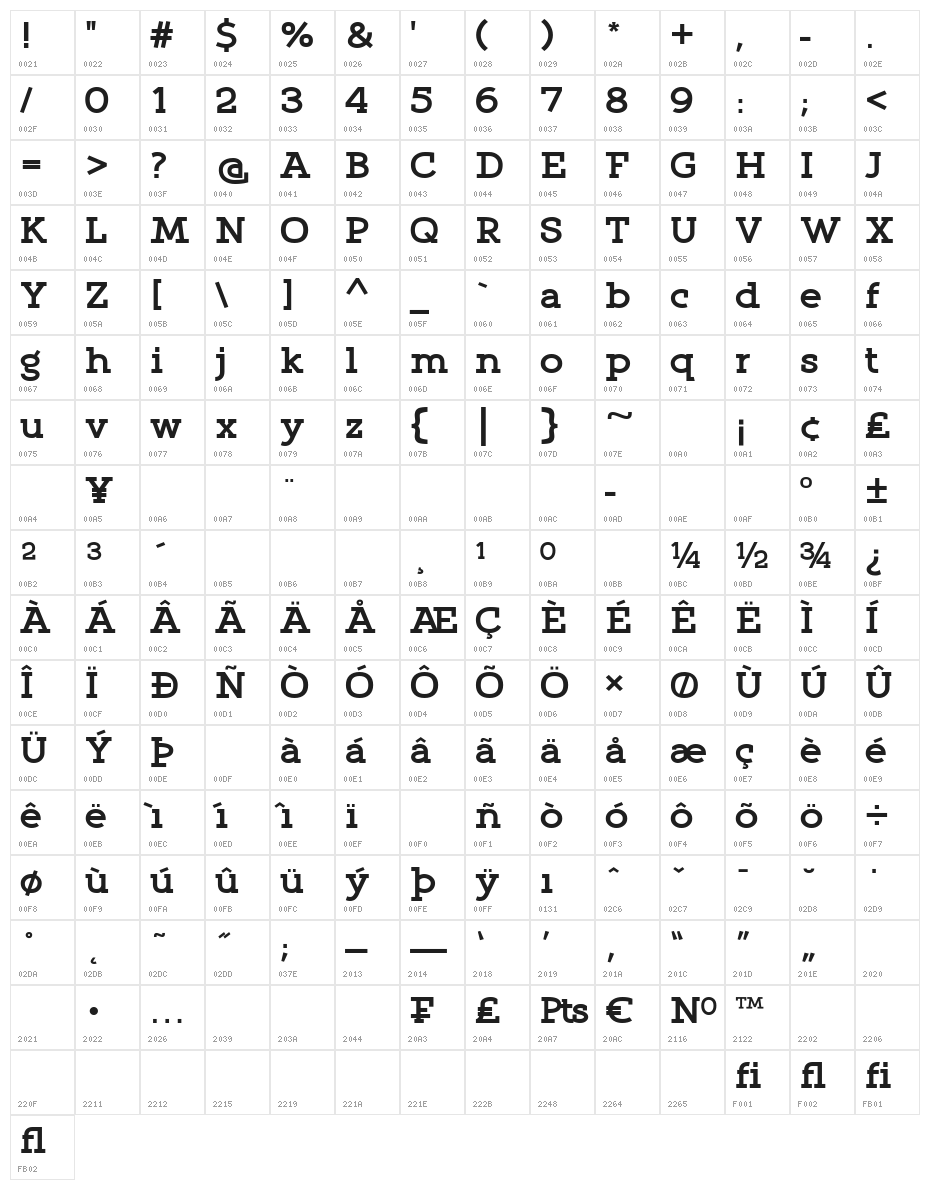
Qlarendon Bold Font
Qlarendon Bold Description
This font features a bold and confident slab serif style, characterized by thick, block-like serifs that give it a strong and sturdy appearance. The uppercase letters are robust and commanding, while the lowercase letters maintain a consistent weight, ensuring readability and balance. The numerals are clear and distinct, with a uniform width that complements the overall design. Special characters are well-integrated, maintaining the font's cohesive look. This font's boldness and clarity make it suitable for impactful and attention-grabbing designs.
| Proposed Projects | Ideal for headlines, posters, branding, and any project requiring a strong visual impact. |